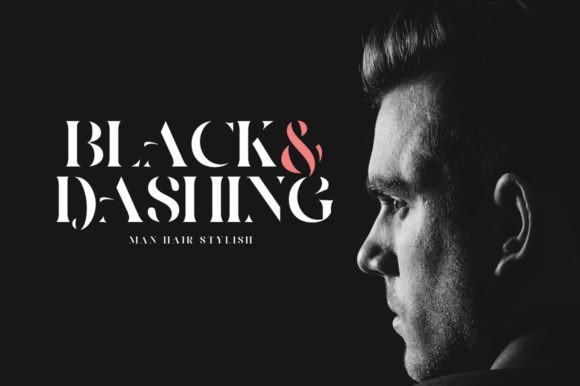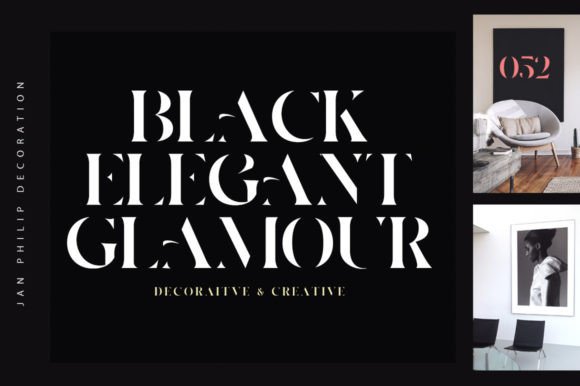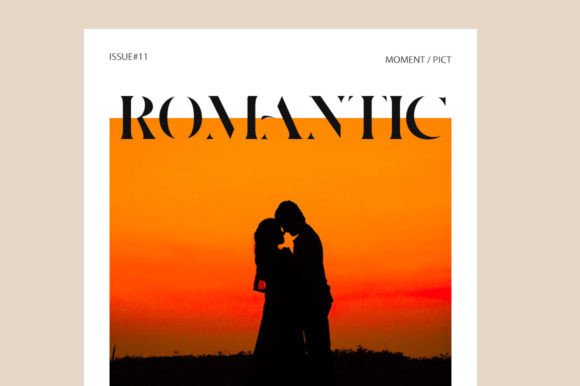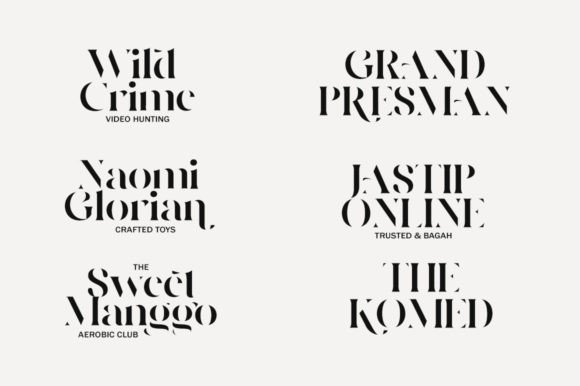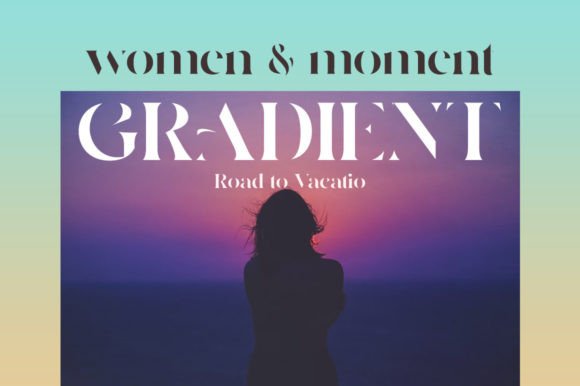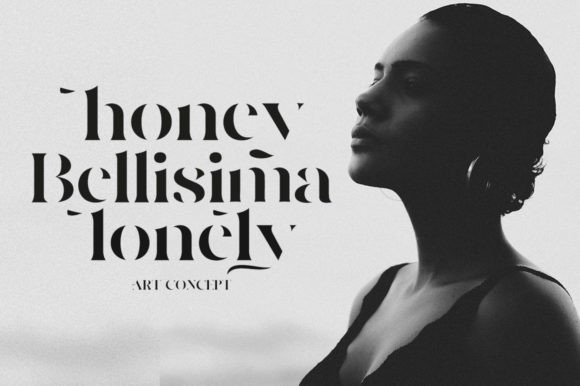
Discover the Elegance of Brado Font: A Serif Marvel with High Contrast Style
In the realm of typography, fonts play a pivotal role in defining the visual identity of a brand, product, or creative project. Among the myriad of fonts available, the Brado Font stands out for its unique blend of elegance and versatility. This article delves into the characteristics, inspirations, and applications of the Brado Font, exploring why it has become a favorite among designers and crafters alike.
What is Brado Font?
Brado is a serif font distinguished by its high contrast style, a feature that sets it apart from more uniform typefaces. This distinctive characteristic is not just aesthetically pleasing but also highly functional, offering a modern feel that can elevate a wide range of design projects. The font’s design is inspired by the intricate typography often found in logo snippets, which are frequently complicated to create but highly sought after for their unique appeal.
Inspiration Behind Brado Font
The creators of Brado Font drew inspiration from the complex and often detailed world of logo typography. Logos, especially those for brands aiming to stand out, frequently incorporate intricate details and stylistic elements that make them memorable. However, such complexity can be challenging to achieve in various products and mediums. The Brado Font captures this essence, offering a solution that is both intricate and adaptable.
Key Features of Brado Font
- High Contrast Style: The font’s high contrast between thick and thin strokes gives it a luxurious and elegant appearance, perfect for projects where making a statement is key.
- Serif Elegance: The serif details add a classic touch, making Brado suitable for traditional as well as modern designs.
- Versatility: Brado is designed to be easy to mix and match, allowing designers to create a wide array of logos, branding materials, and other products with a cohesive look.
- Modern Feel: By simplifying the font and adding stencil elements, designers can achieve a contemporary look that appeals to modern tastes.
Applications of Brado Font
The versatility of Brado Font makes it suitable for a variety of applications, including:
- Branding: Create a lasting impression with a unique and elegant font that captures the essence of your brand.
- Packaging: Stand out on store shelves with eye-catching packaging designs that leverage the high contrast and serif details of Brado.
- Headlines and Posters: Draw attention with bold and elegant headlines or posters that utilize the distinctive features of Brado Font.
- Presentations: Elevate your presentations with a professional and stylish font that communicates your message effectively.
- Short Texts: Whether it’s a tagline, a slogan, or a short description, Brado Font can add a touch of sophistication to any short text.
Tips for Using Brado Font
To maximize the potential of Brado Font, consider the following tips:
- Experiment with Weights: Playing with different weights of the font can add depth and hierarchy to your designs.
- Combine with Simplicity: Pair Brado with simpler fonts for a balanced look, especially in multi-font designs.
- Adjust for Readability: Ensure that the font size and line spacing are adjusted for optimal readability, especially in longer texts.
Brado Font is a remarkable addition to the world of typography, offering a unique blend of high contrast style, serif elegance, and versatility. Whether you’re a designer looking to create stunning branding materials, a crafter aiming to add a touch of sophistication to your products, or simply a typography enthusiast, Brado Font is sure to inspire. Its applications are vast, and its potential is limitless. By incorporating Brado into your design toolkit, you’re equipping yourself with a powerful means of expression that can elevate your projects to new heights of elegance and professionalism.